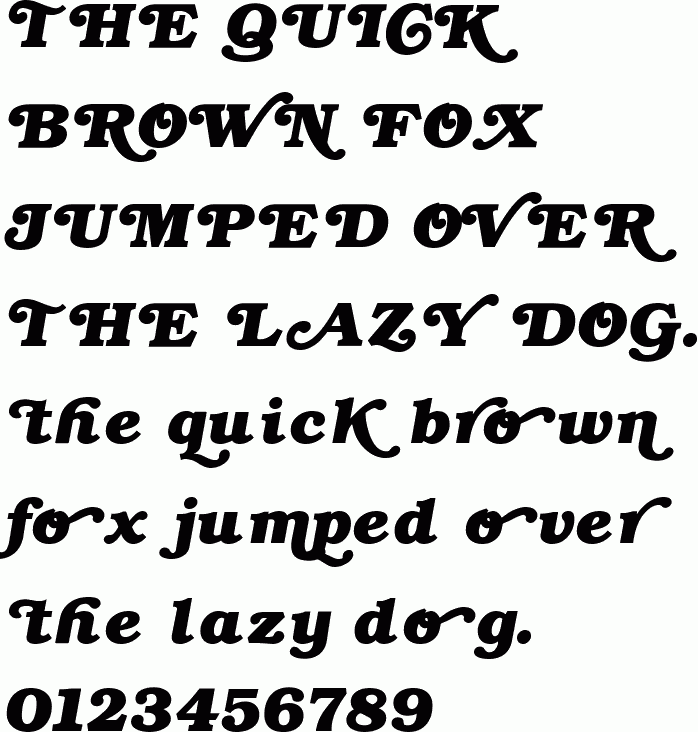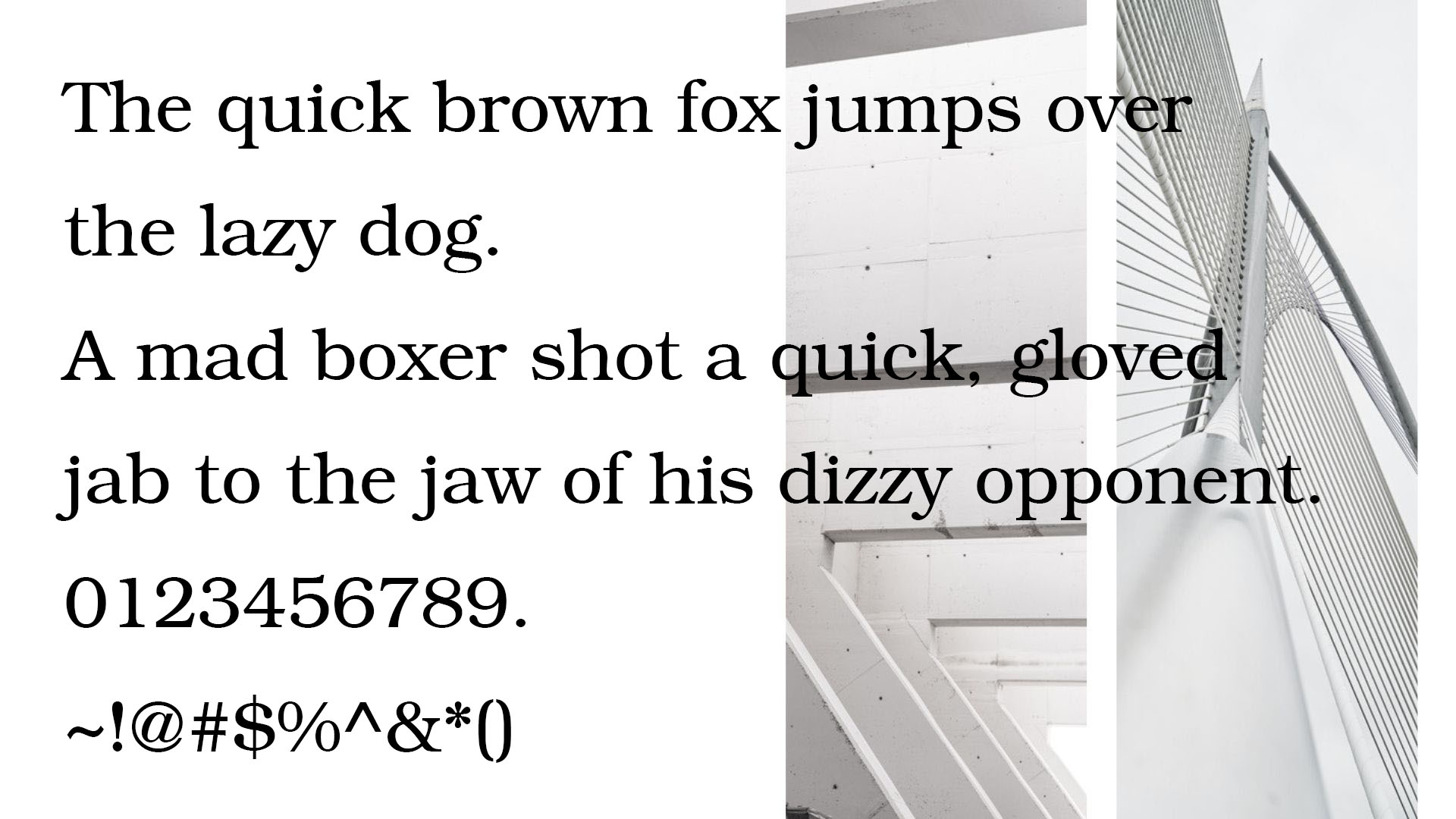
Book Man Font
Book Man Font - The original design was called old style antique and was created by alexander phemister. Web bookman is a transitional serif typeface. Web bookmanjf is the classic “bookman swash” font that has been beloved by designers for decades. Griffith, alexander phemister and published by bitstream. The italic has been re. Web bookman font family was designed by chauncey h. Web monotype bookman old style roman is based on earlier lanston monotype and atf models. Griffith and alexander phemister bitstream 1936 this fontlist includes typefaces such as bookman old. Click to find the best 2 free fonts in the bookman style. It’s a clarendon style font that.
The italic has been re. Click to find the best 2 free fonts in the bookman style. The original design was called old style antique and was created by alexander phemister. Web monotype bookman old style roman is based on earlier lanston monotype and atf models. Griffith, alexander phemister and published by bitstream. It’s a clarendon style font that. Web bookman font family was designed by chauncey h. Griffith and alexander phemister bitstream 1936 this fontlist includes typefaces such as bookman old. Web looking for bookman fonts? Web bookman is a transitional serif typeface.
It’s a clarendon style font that. Web bookman is a transitional serif typeface. Every font is free to download! The italic has been re. Web bookman font family was designed by chauncey h. Griffith and alexander phemister bitstream 1936 this fontlist includes typefaces such as bookman old. The original design was called old style antique and was created by alexander phemister. Griffith, alexander phemister and published by bitstream. Web bookmanjf is the classic “bookman swash” font that has been beloved by designers for decades. Click to find the best 2 free fonts in the bookman style.
Web looking for bookman fonts? Griffith and alexander phemister bitstream 1936 this fontlist includes typefaces such as bookman old. Click to find the best 2 free fonts in the bookman style. The italic has been re. Griffith, alexander phemister and published by bitstream.
Every font is free to download! The italic has been re. It’s a clarendon style font that. Griffith, alexander phemister and published by bitstream. Web looking for bookman fonts?
The italic has been re. Web bookman font family was designed by chauncey h. Click to find the best 2 free fonts in the bookman style. Griffith and alexander phemister bitstream 1936 this fontlist includes typefaces such as bookman old. Web bookmanjf is the classic “bookman swash” font that has been beloved by designers for decades.
Web bookmanjf is the classic “bookman swash” font that has been beloved by designers for decades. The italic has been re. It’s a clarendon style font that. Web bookman is a transitional serif typeface. The original design was called old style antique and was created by alexander phemister.
Web monotype bookman old style roman is based on earlier lanston monotype and atf models. Web bookman font family was designed by chauncey h. Web looking for bookman fonts? Web bookman is a transitional serif typeface. Web bookmanjf is the classic “bookman swash” font that has been beloved by designers for decades.
Web bookmanjf is the classic “bookman swash” font that has been beloved by designers for decades. Griffith, alexander phemister and published by bitstream. Web looking for bookman fonts? Web monotype bookman old style roman is based on earlier lanston monotype and atf models. Griffith and alexander phemister bitstream 1936 this fontlist includes typefaces such as bookman old.
ITC Bookman DAYLIGHT FONTS
It’s a clarendon style font that. Web monotype bookman old style roman is based on earlier lanston monotype and atf models. The italic has been re. Griffith and alexander phemister bitstream 1936 this fontlist includes typefaces such as bookman old. Griffith, alexander phemister and published by bitstream.
Bookman Old Style / Bookman Old Style Курсив Font Download Free
The italic has been re. It’s a clarendon style font that. Griffith, alexander phemister and published by bitstream. The original design was called old style antique and was created by alexander phemister. Web looking for bookman fonts?
Bookman Font Free Download Fonts Empire
Web bookmanjf is the classic “bookman swash” font that has been beloved by designers for decades. Griffith, alexander phemister and published by bitstream. Griffith and alexander phemister bitstream 1936 this fontlist includes typefaces such as bookman old. Click to find the best 2 free fonts in the bookman style. It’s a clarendon style font that.
Bookman Font Collection (349352) Display Font Bundles
Web bookmanjf is the classic “bookman swash” font that has been beloved by designers for decades. The italic has been re. The original design was called old style antique and was created by alexander phemister. Every font is free to download! Griffith, alexander phemister and published by bitstream.
The Italic Has Been Re.
Web bookman is a transitional serif typeface. Web looking for bookman fonts? Web monotype bookman old style roman is based on earlier lanston monotype and atf models. Click to find the best 2 free fonts in the bookman style.
The Original Design Was Called Old Style Antique And Was Created By Alexander Phemister.
Griffith, alexander phemister and published by bitstream.